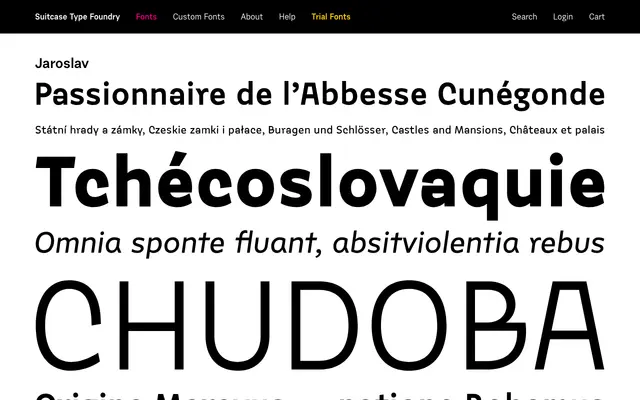
A serif typeface from Czech foundry Suitcase Type, named after a Czech given name with likely Central European design sensibility.
Jaroslav is a serif from Prague-based Suitcase Type Foundry, whose catalogue draws on Central European typographic traditions. The page offers minimal detail, but the foundry's broader output suggests a text-oriented design with careful attention to diacritics and Latin Extended coverage. Related family Benda shares the catalogue alongside it.
Suitcase Type Foundry is a Czech foundry with a heritage in Central European type design; Jaroslav is likely a text serif in the transitional or humanist tradition, though the page content is too sparse to confirm specifics.